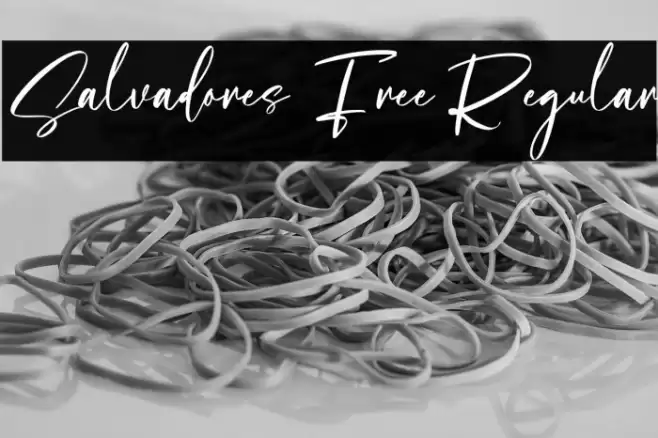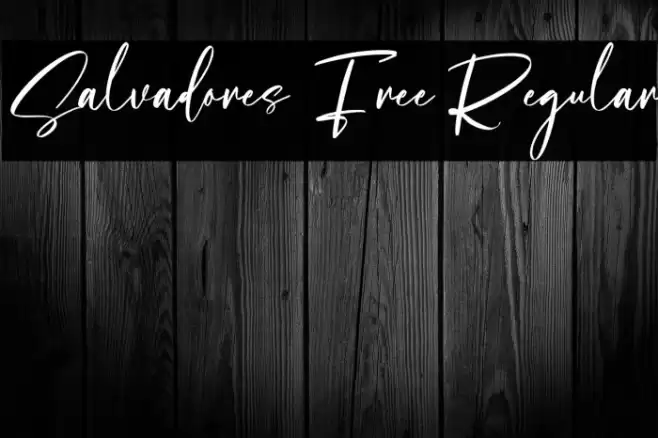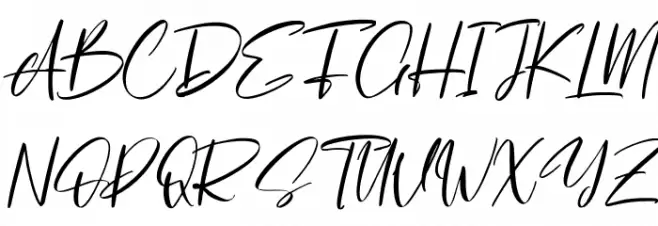
Salvadores Free Regular Font
Salvadores Free Regular Description
This font features a dynamic and fluid script style, characterized by its elegant, flowing lines and a handwritten appearance. The letters are interconnected, creating a seamless and continuous look that mimics natural handwriting. The strokes vary in thickness, adding a sense of movement and grace. The uppercase letters are bold and prominent, while the lowercase letters maintain a delicate and refined quality. This font exudes a sense of sophistication and creativity, making it ideal for projects that require a personal touch.
A fluid and elegant script font with a handwritten style from Regular fonts.
- Proposed Projects: Ideal for wedding invitations, greeting cards, branding, and logo design.
- Overall Style: Elegant, Handwritten
- Use Case: Logos, Invitations, Decorative text